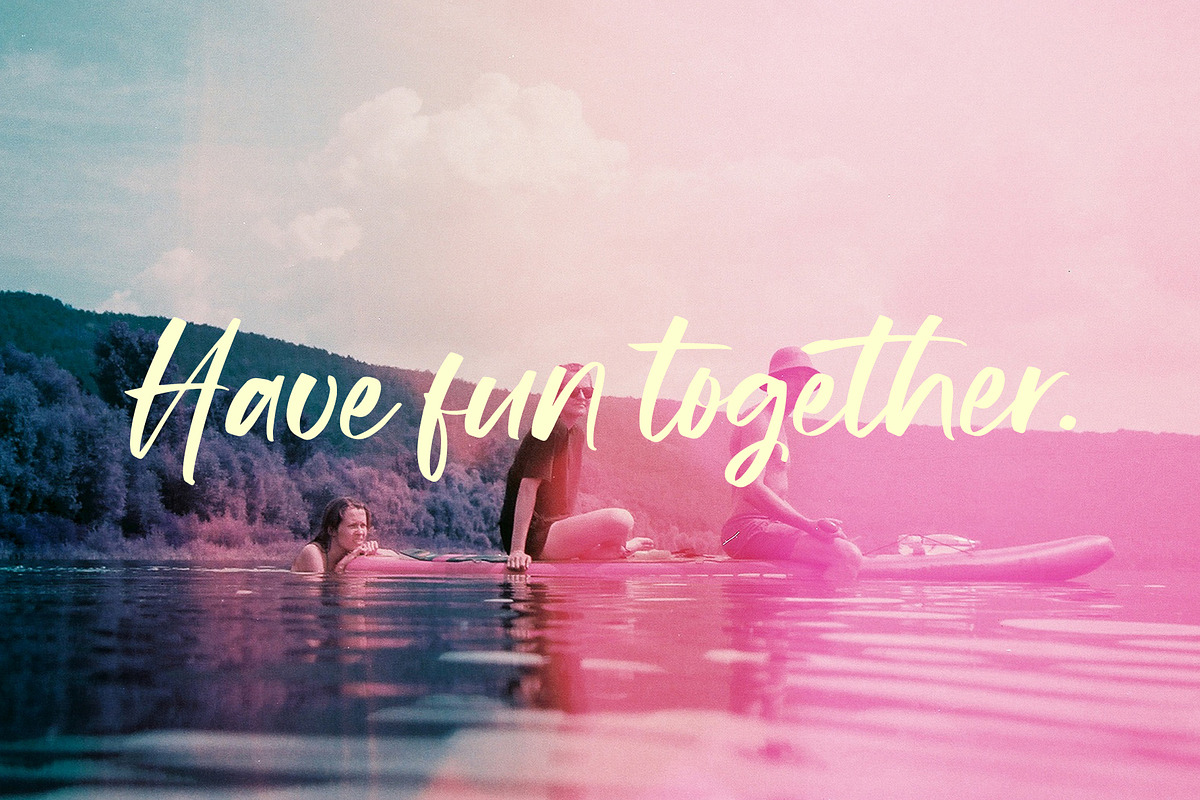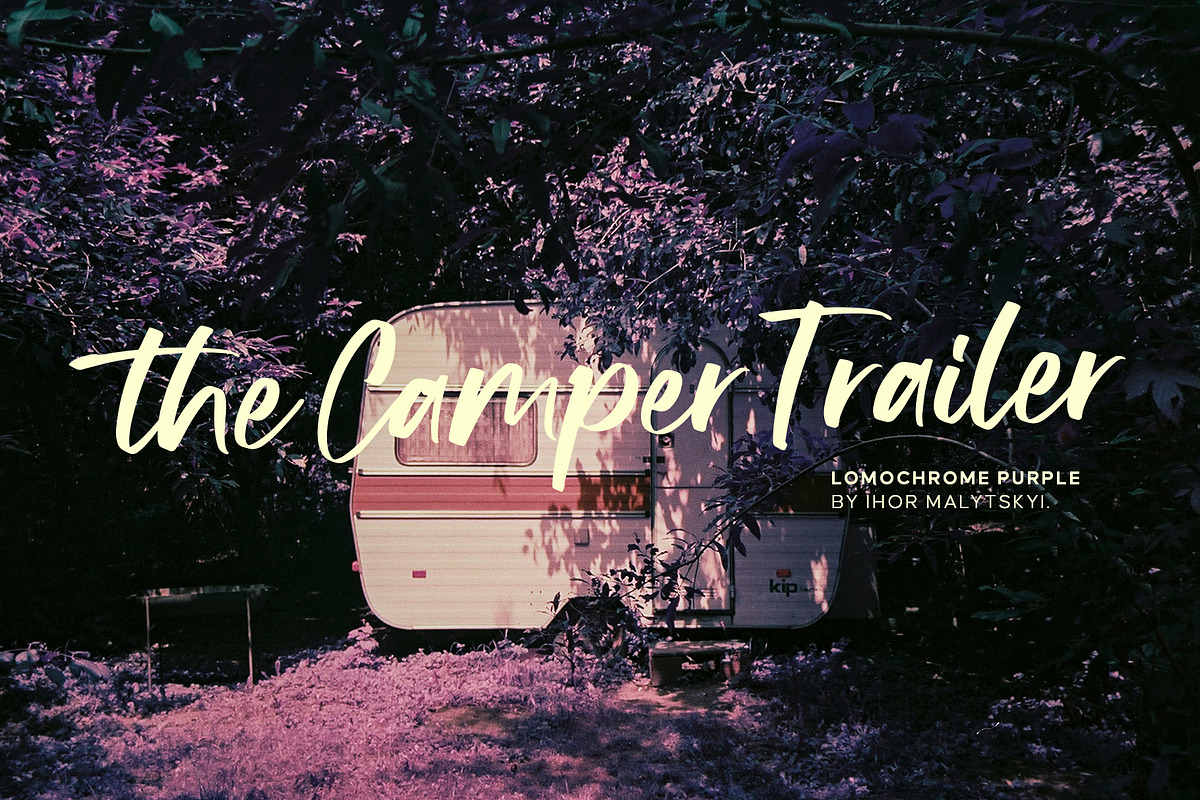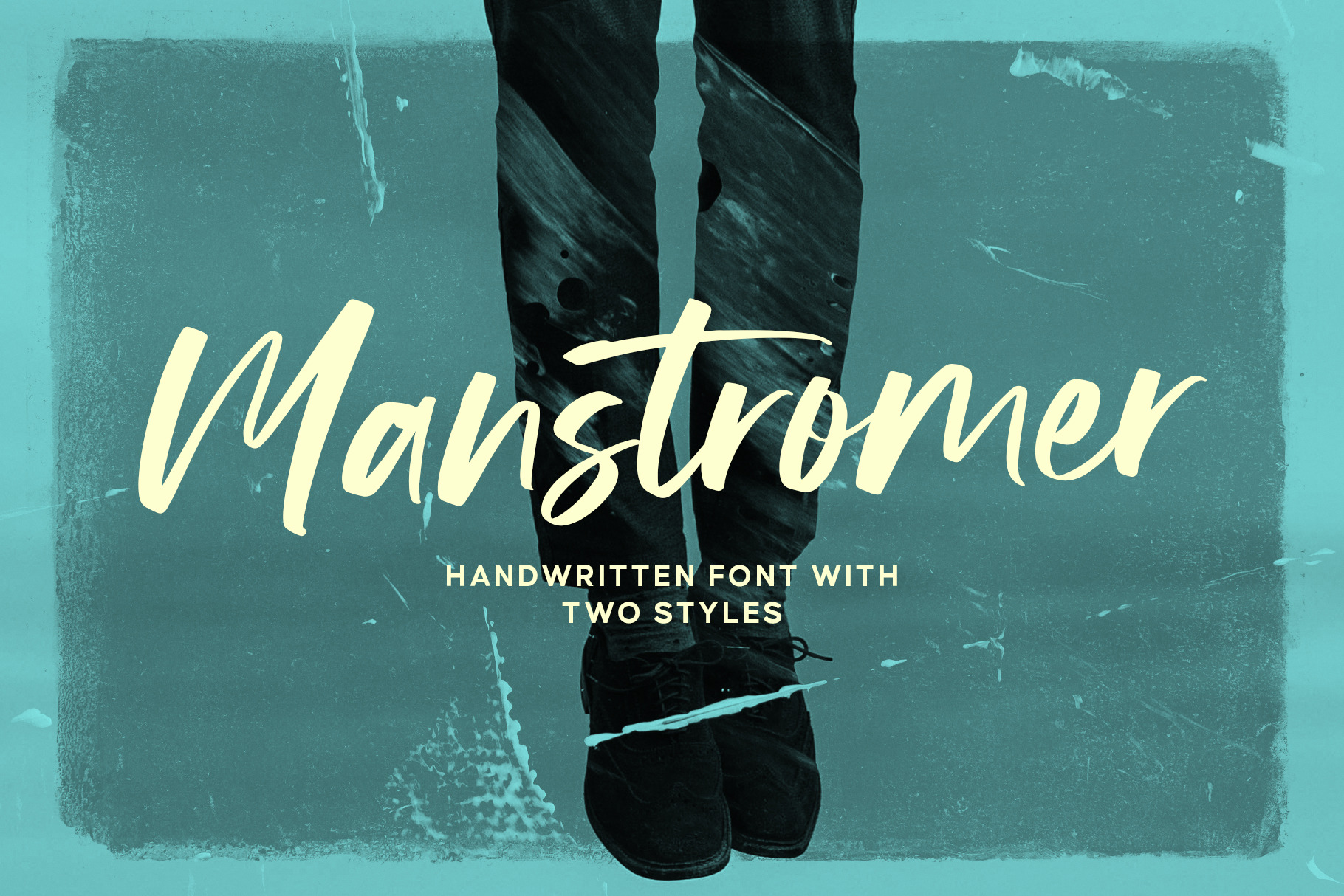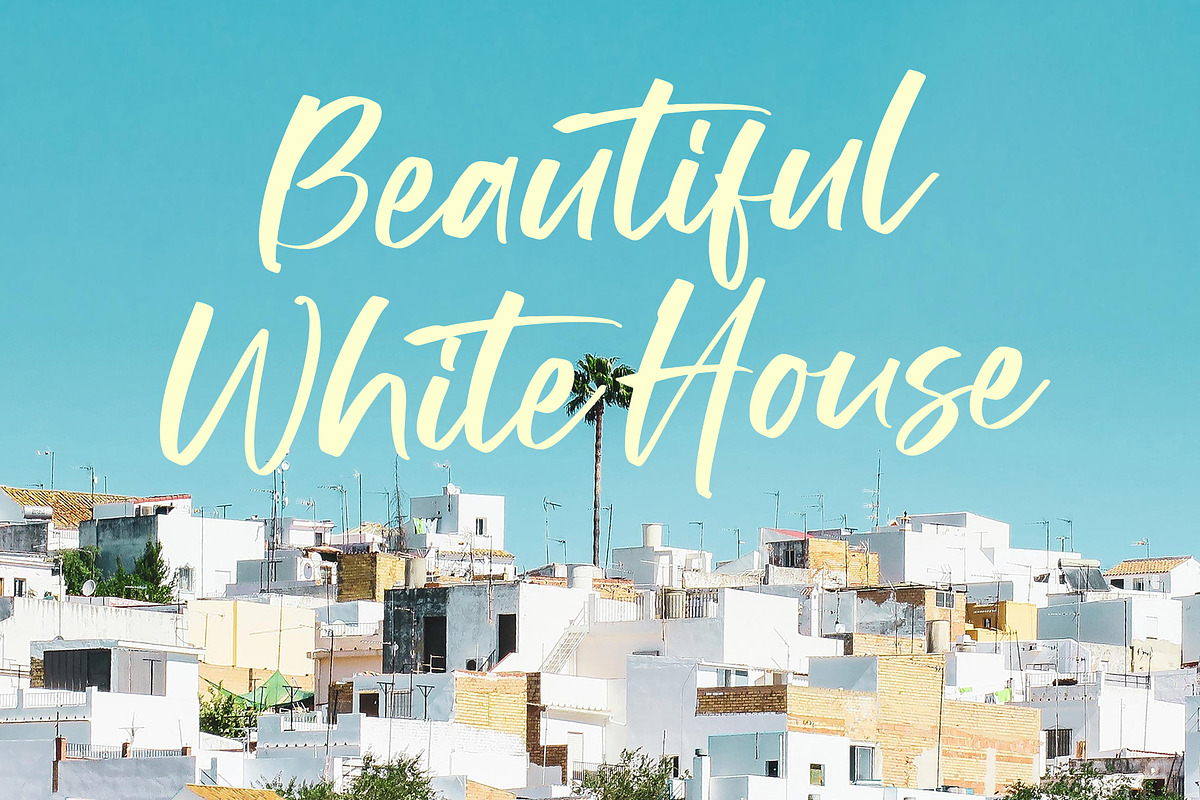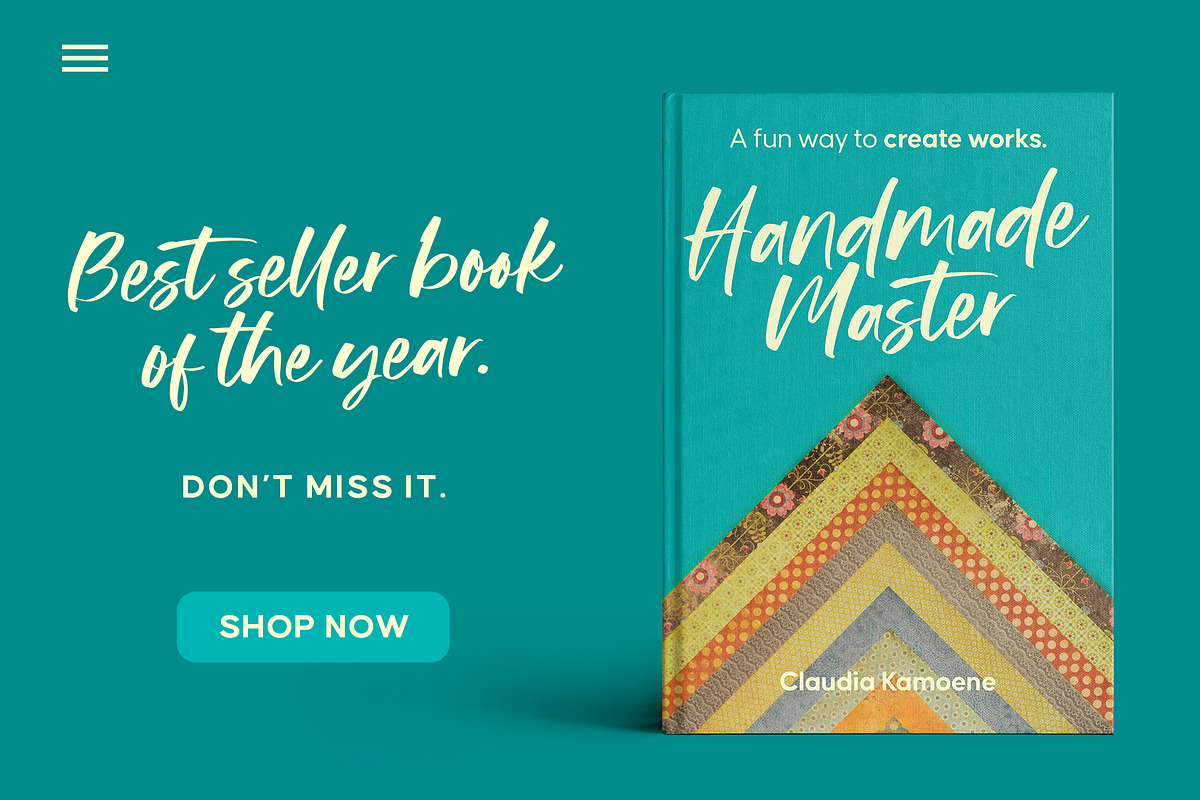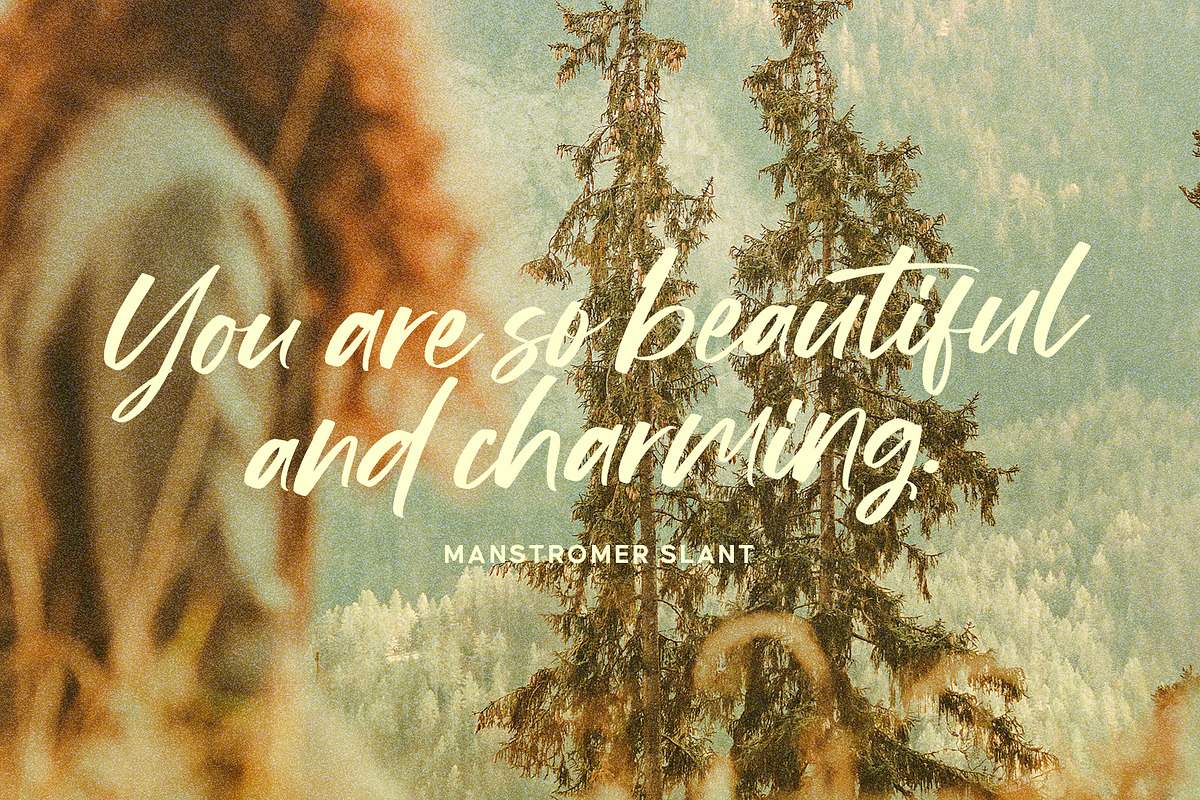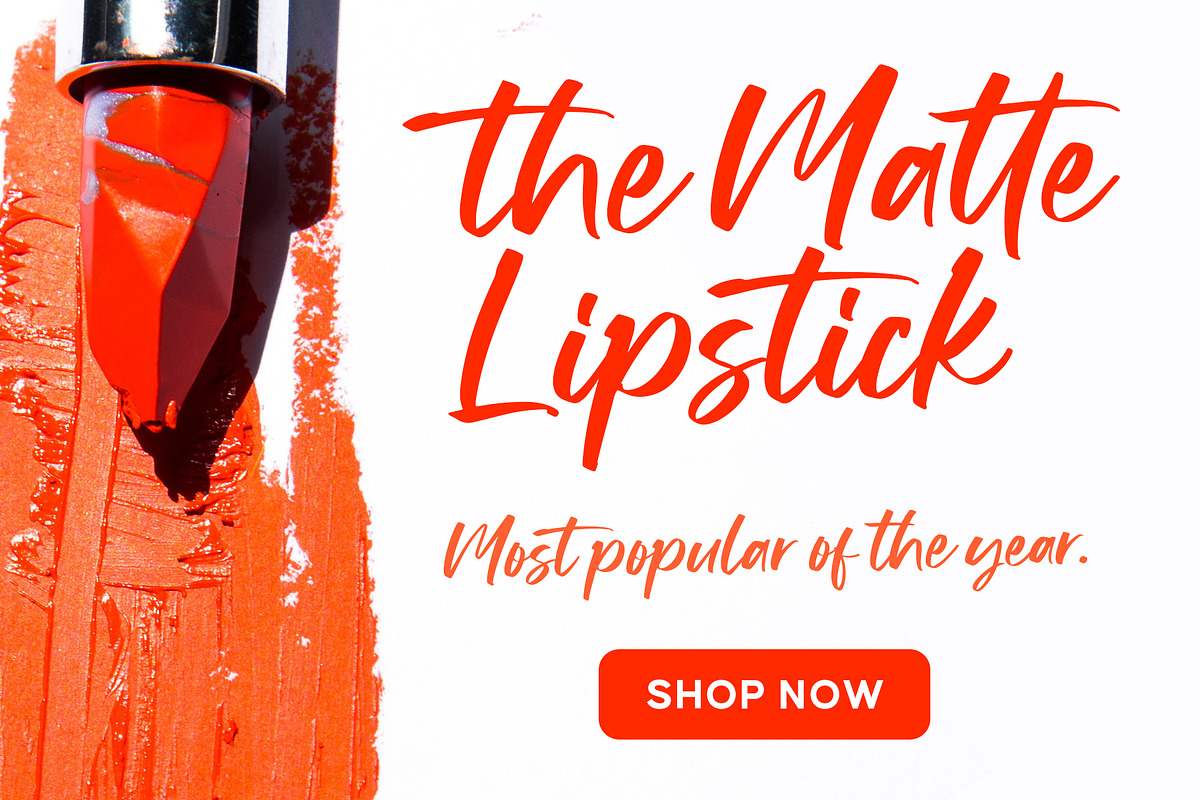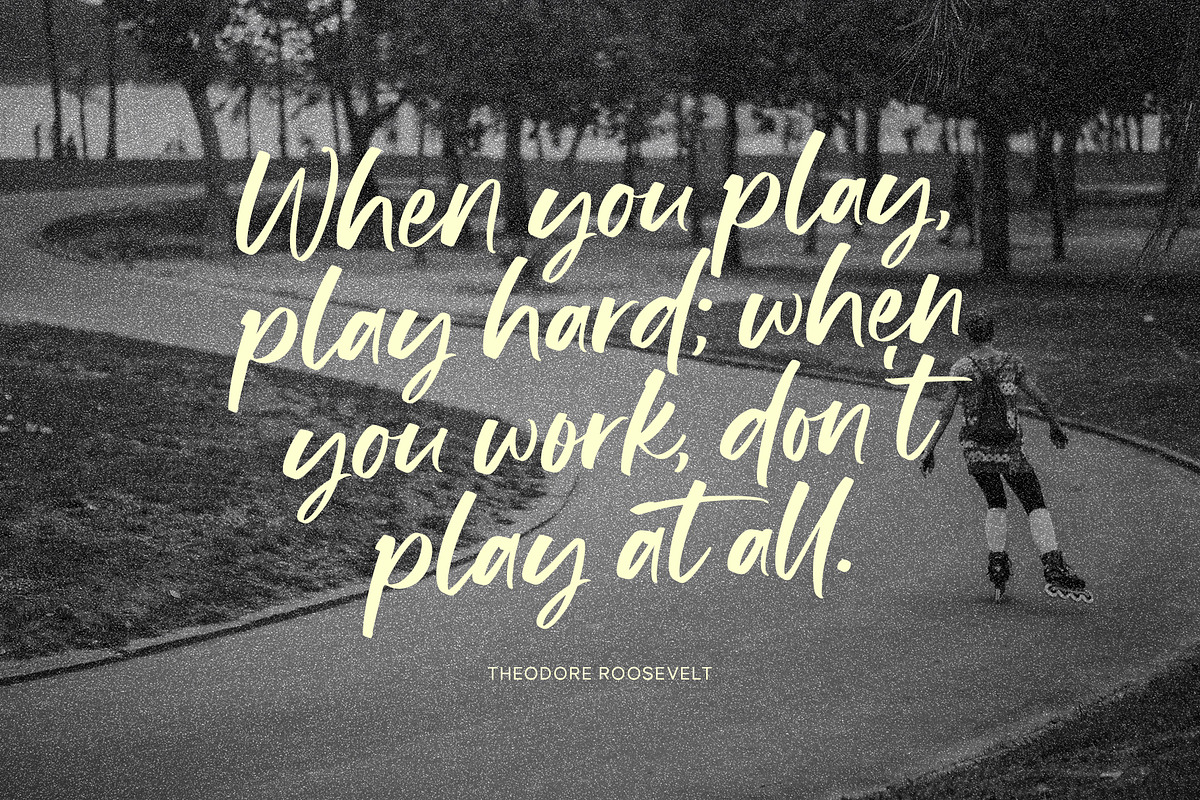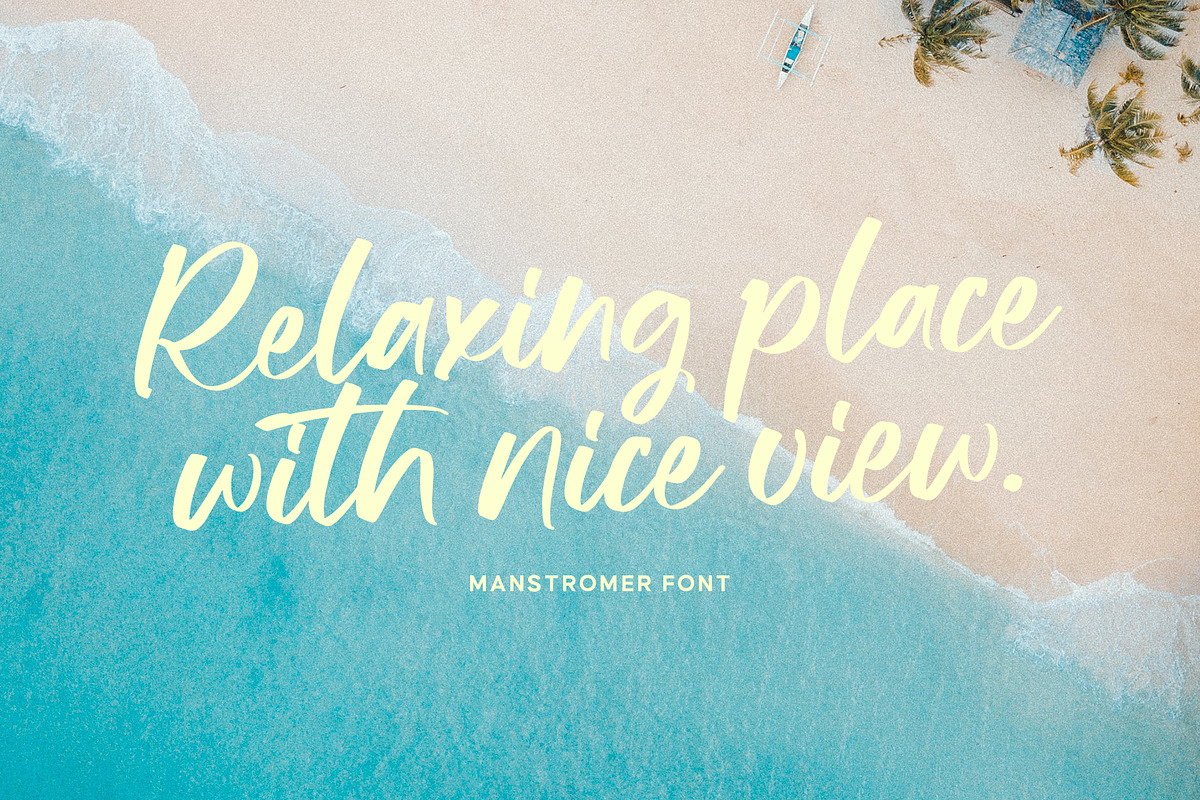
Manstromer Font
Manstromer is a dynamic handwritten font, written with fast movements. Comes with two fonts styles, regular and slant. Manstromer is suitable for branding, advertising, headlines, packaging design, and many more.
- Number & punctuation symbols
- Stylistic Sets
- International characters (Multilingual)